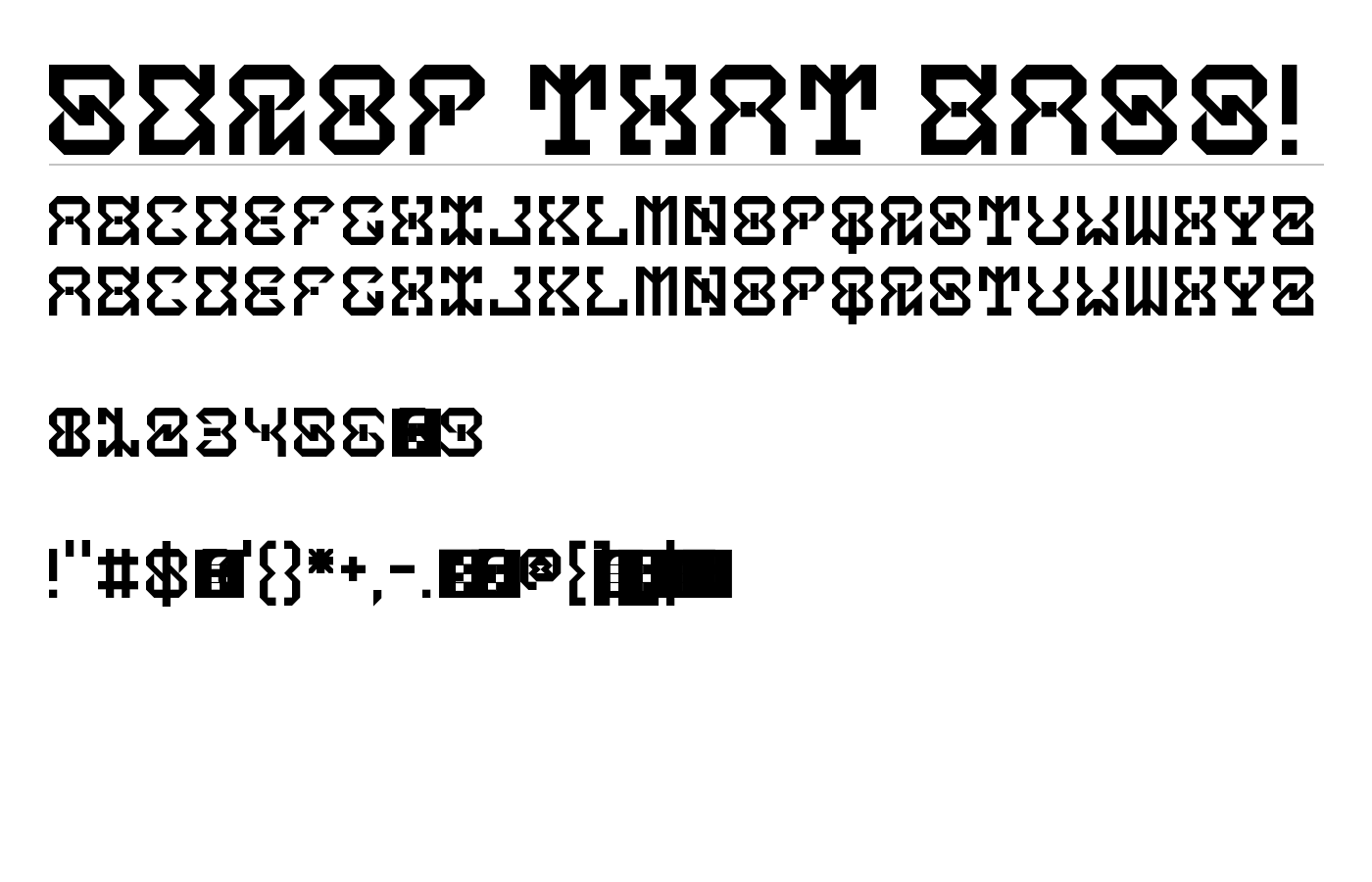
5Drop That Bass! is a bold, geometric display font featuring sharp, blocky shapes and a heavy weight that commands attention. Its unique, angular letterforms have a futuristic, almost techno vibe, making it perfect for striking headlines, music event posters, or edgy branding where a strong, modern personality is needed. This font works best in large sizes to showcase its intricate design and dynamic style.
5Drop That Bass! Font
About 5Drop That Bass! Font
| Font family | 5Drop That Bass! Font |
| Designer | Noah - 10 year old typomaniac |